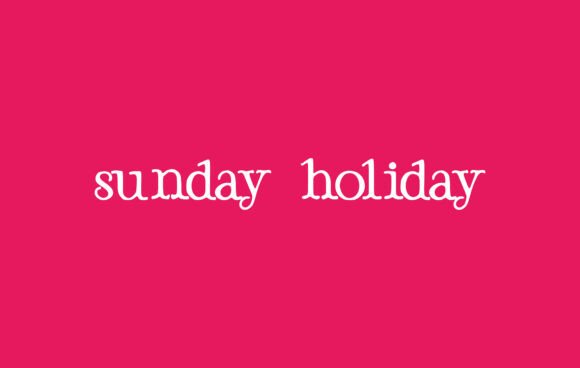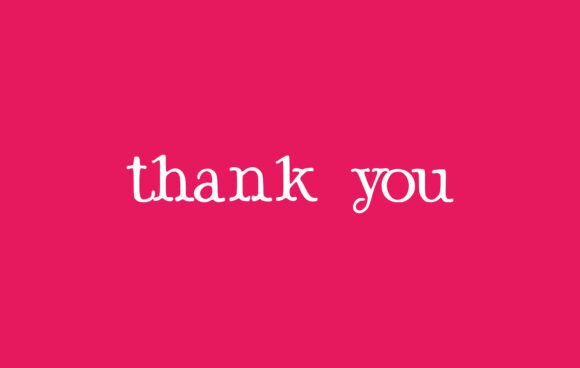
Hawk Font: Elevate Your Creative Projects with a Touch of Romance
In the world of typography, fonts play a crucial role in bringing creative ideas to life. Among the numerous fonts available, Hawk Font stands out as a stunning serif font that exudes a romantic touch. Designed to capture the hearts of designers and crafters, Hawk Font is an authentic choice that can elevate your projects to new heights.
The Charm of Hawk Font
Hawk Font boasts a classic serif design with a subtle romantic flair. Its elegant strokes and refined features make it an excellent choice for a wide range of creative projects, from wedding invitations and branding materials to novels and magazines. The font’s sophisticated appearance is sure to leave a lasting impression on your audience.
Key Features of Hawk Font
- Authentic Serif Design: Hawk Font features a traditional serif design that exudes a sense of classic elegance.
- Romantic Touch: The font’s subtle romantic flair adds a touch of sophistication and whimsy to your projects.
- Highly Versatile: Hawk Font is suitable for a wide range of creative projects, from print materials to digital applications.
- Easy to Read: The font’s clear and refined features ensure excellent readability, making it perfect for body text and headings.
Why Choose Hawk Font?
- Unique Character: Hawk Font has a distinct personality that sets it apart from other serif fonts.
- Expertly Designed: The font has been carefully crafted to ensure a perfect balance of elegance and legibility.
Using Hawk Font in Your Creative Projects
- Wedding Invitations: Use Hawk Font to create beautiful wedding invitations, save-the-date cards, and ceremony programs.
- Branding Materials: Elevate your brand’s visual identity with Hawk Font, perfect for logos, business cards, and letterheads.
- Novels and Magazines: Add a touch of elegance to your fiction or non-fiction publications with Hawk Font.
- Digital Content: Use Hawk Font to create engaging social media graphics, blog posts, and email newsletters.
Hawk Font is an exceptional serif font that can elevate your creative projects with its romantic touch and authentic design. With its versatility, readability, and unique character, Hawk Font is an excellent choice for designers, crafters, and DIY enthusiasts. Whether you’re working on a wedding invitation, branding materials, or a novel, Hawk Font is sure to leave a lasting impression on your audience.